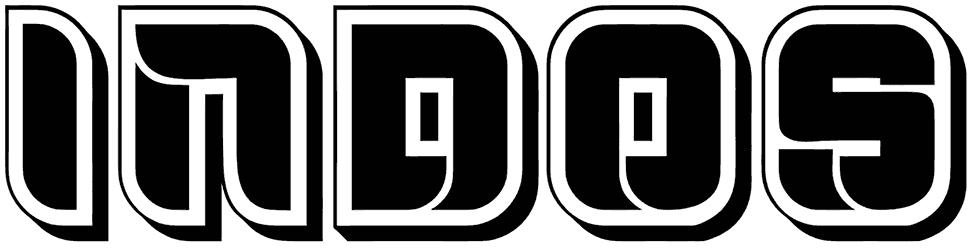
Indos Font
If you are looking for a unique font to use on a special occasion, the Indos font is an excellent choice. This font is offered in two versions, regular and italic. However, it does not support lowercase letters, numbers, and symbols.
The Indos is a graphical font; its letters are designed with smooth edges and significant borders. This is why the feeling behind it is memorable, and the form of the characters remains in your mind.
It comes in Regular and Italic version!